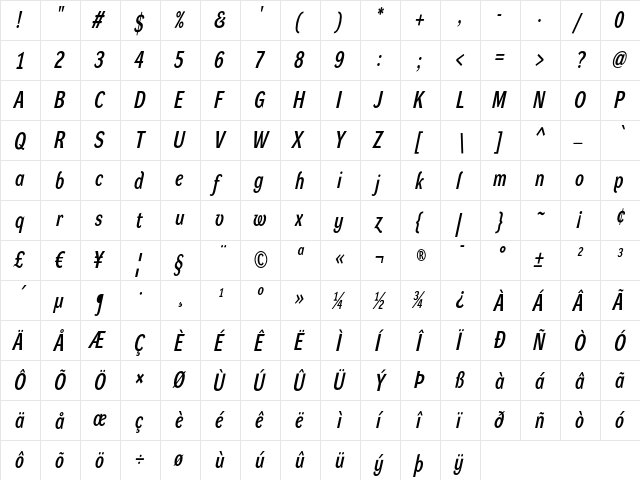
DynaGrotesk LC Bold Italic Font Preview
| Foundry | Frantisek Storm, stormtype.com |
Design Context for DynaGrotesk LC Typeface
DynaGrotesk LC has the quiet confidence of well-executed sans-serif typography: versatile, unobtrusive, and dependable at any size. The dynamic lean of this cut emphasises speed and emphasis in any layout. The heavy weight commands attention and anchors typographic hierarchies.
A strong choice for UI design, app interfaces, bold signage, and corporate brand systems.
Font Pairing: Use DynaGrotesk LC for headlines alongside a lighter-weight sans or serif for body copy to establish clear visual hierarchy.
Pro Tip: Pair DynaGrotesk LC with a display or serif font for headlines — its neutral character makes it an excellent supporting player in complex typographic systems.